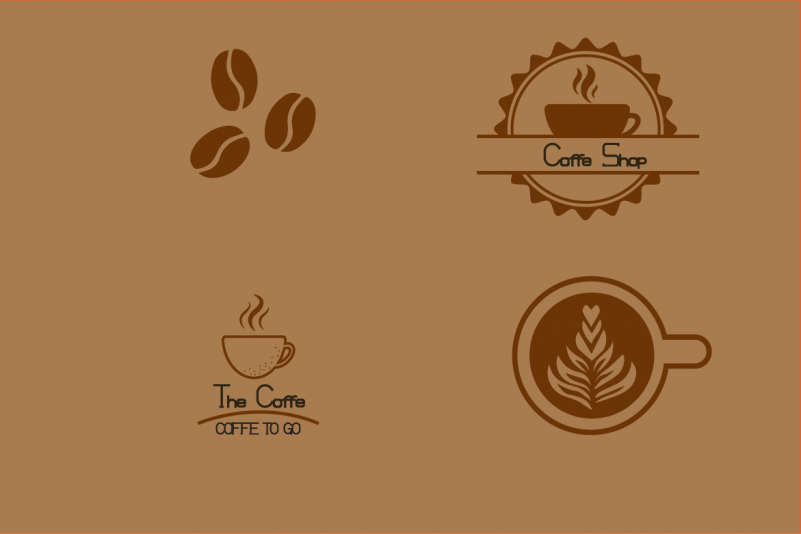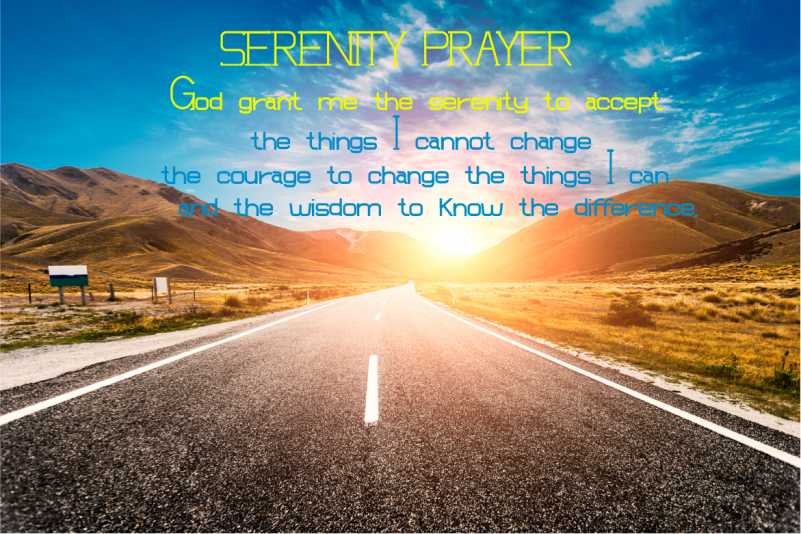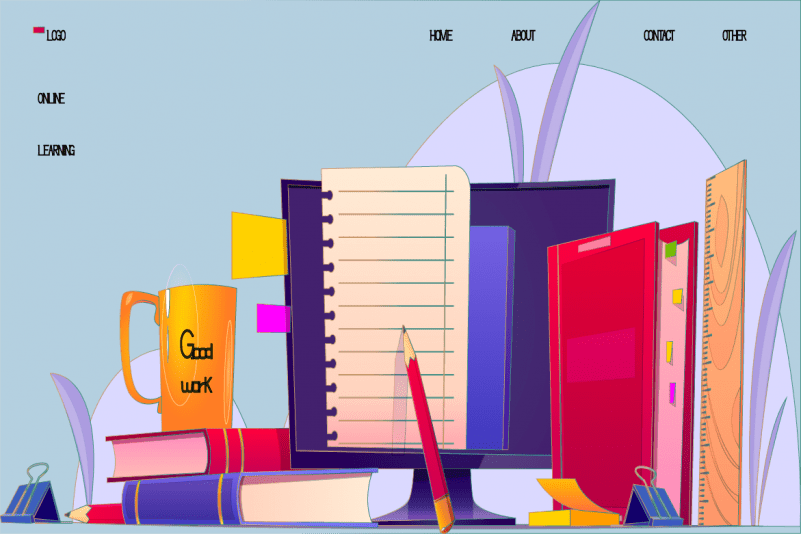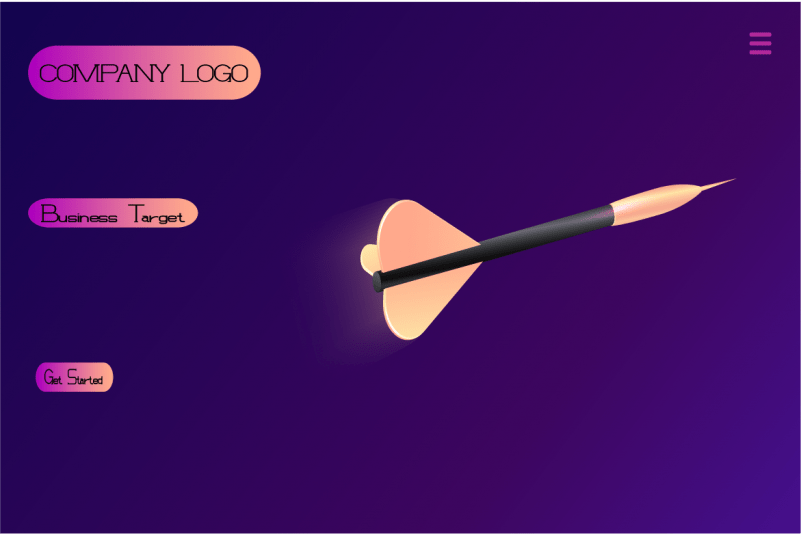
Selehkan Font
Selehkan Serif Font
This is a casual retro from the san serif font family that carries a serif theme, this font is designed with care so that it can produce a blend of letters and become a sweet and elegant word but still natural.
by using this font, your work will become stronger and more extraordinary. Selehkan Font is suitable for various graphic promotion media, banners, posters, logos, typography, handlettering, packaging, t-shirts, labels, and much more.